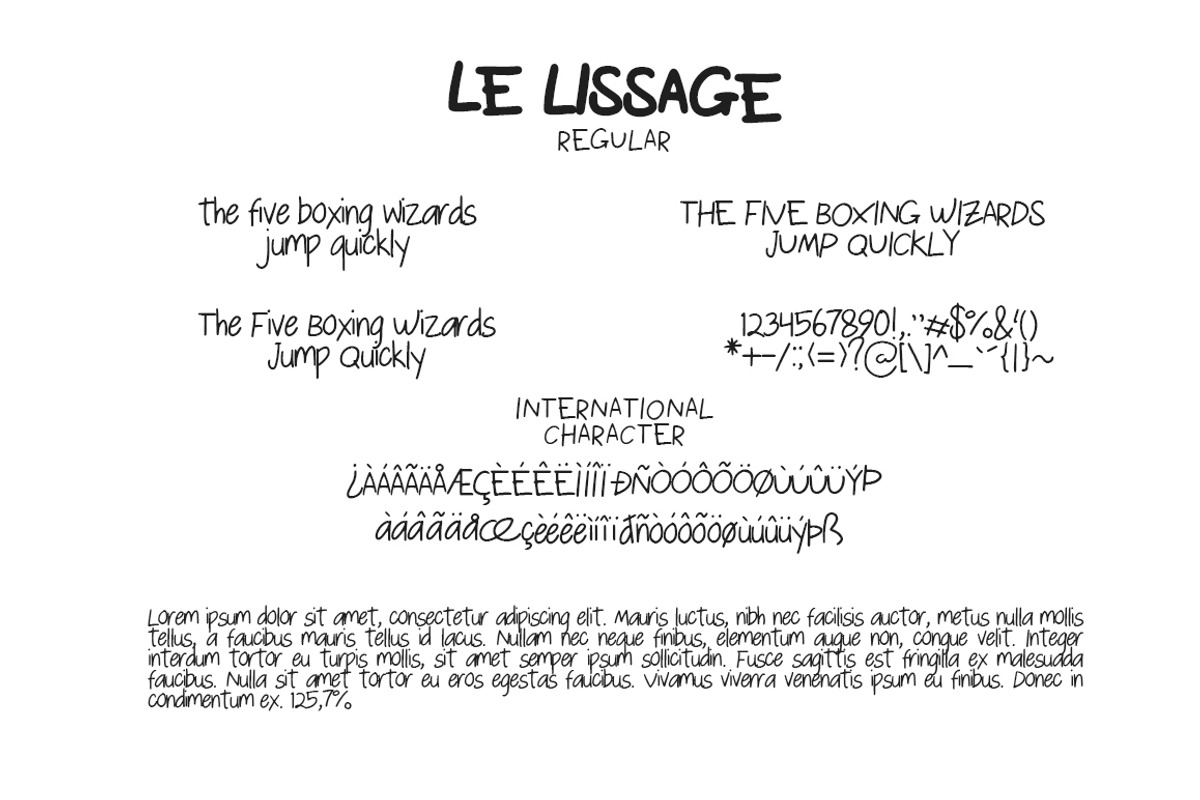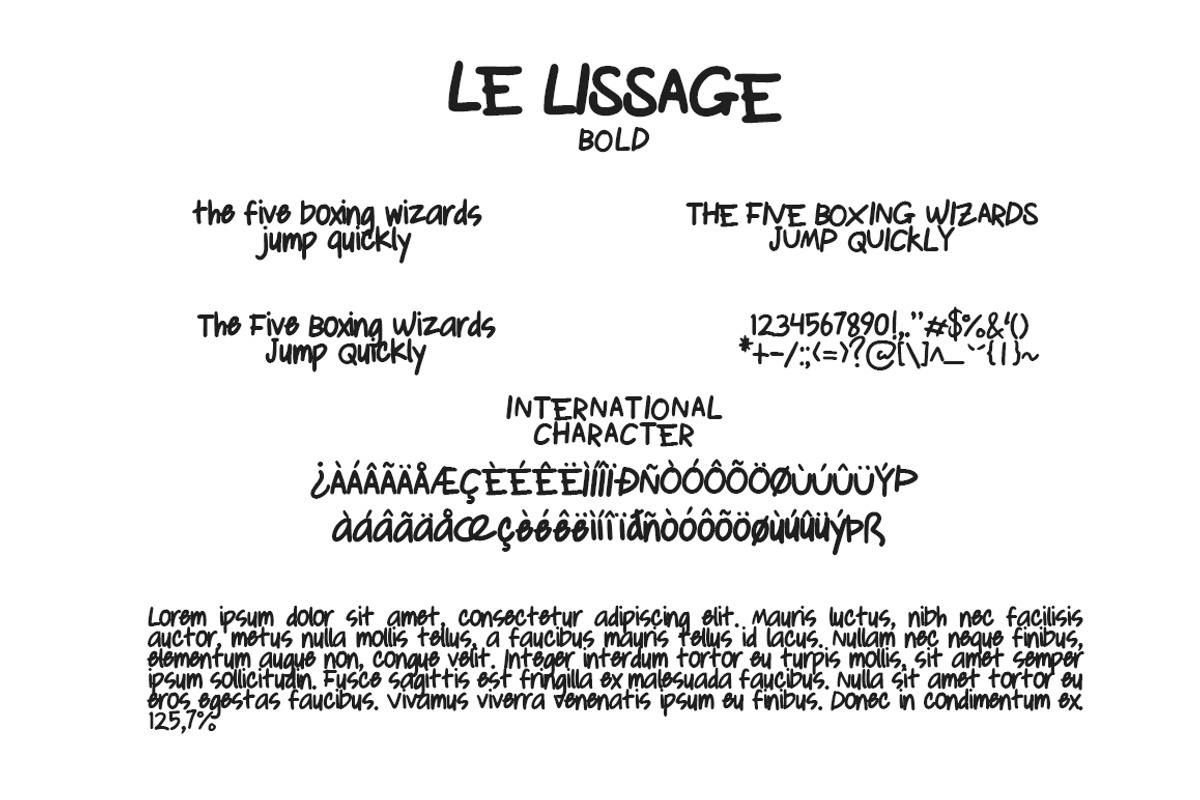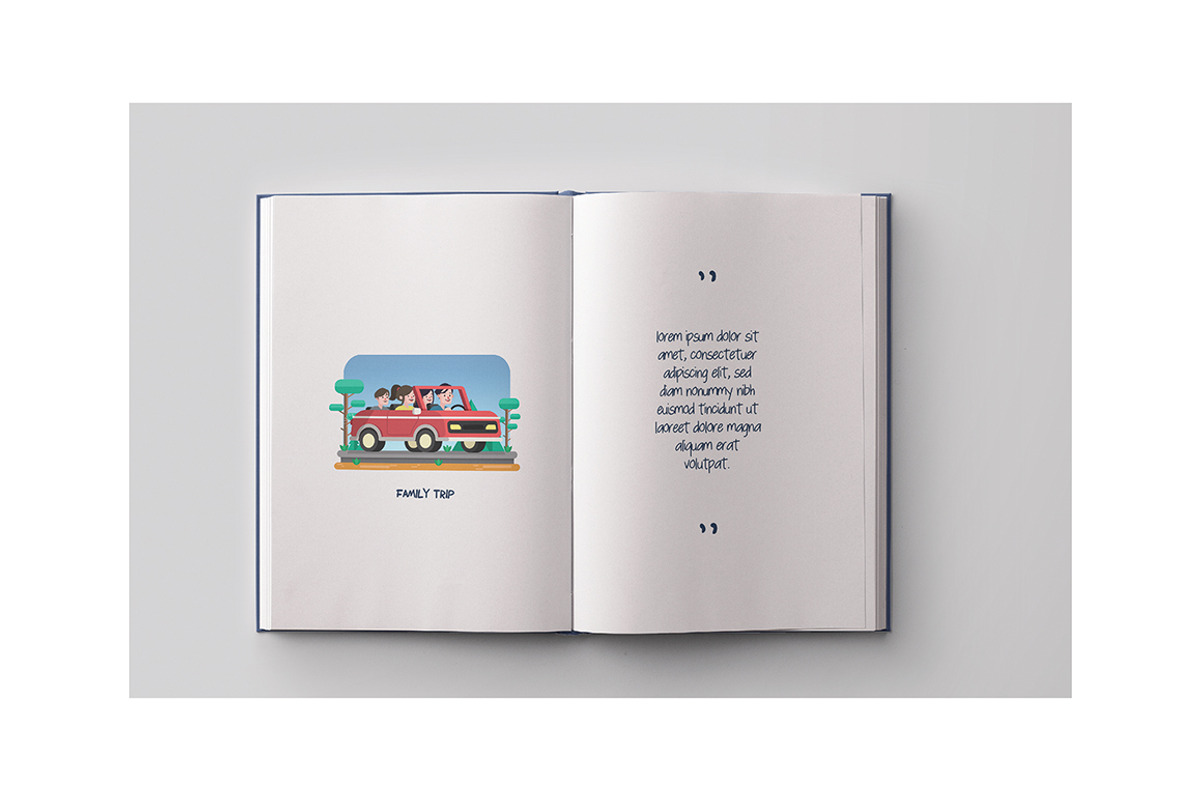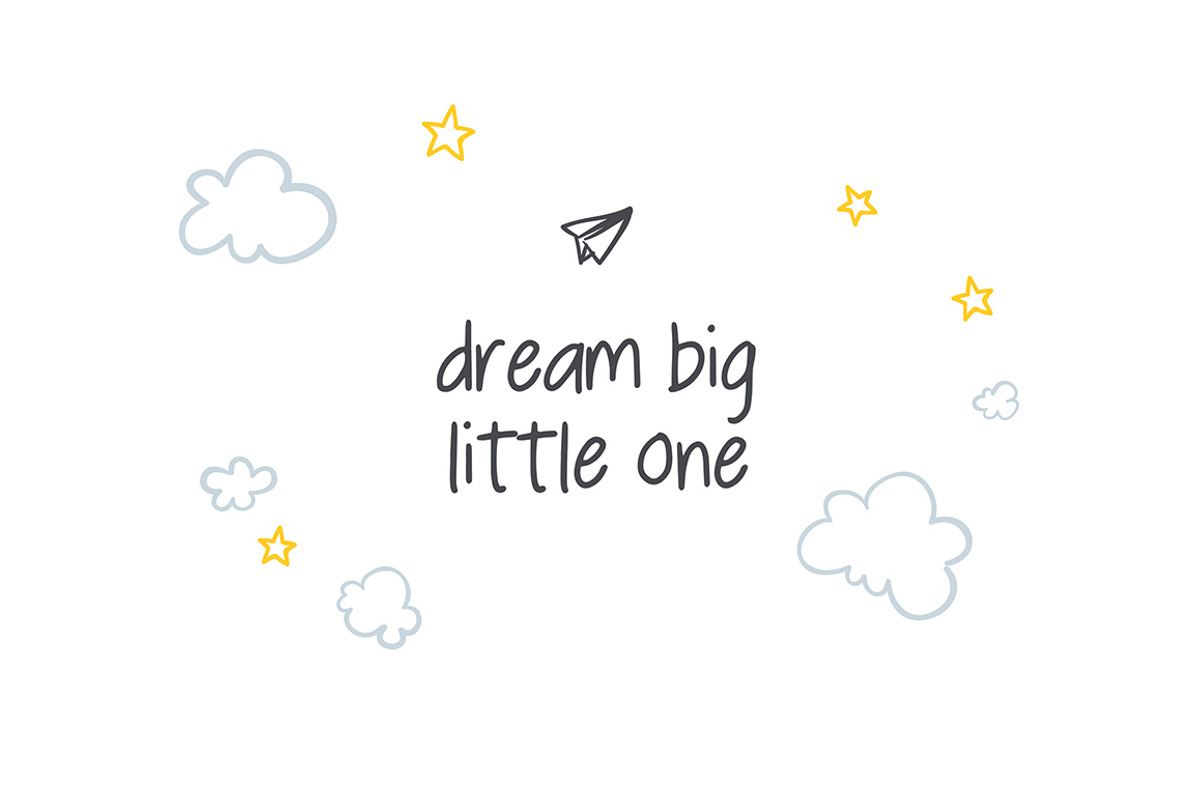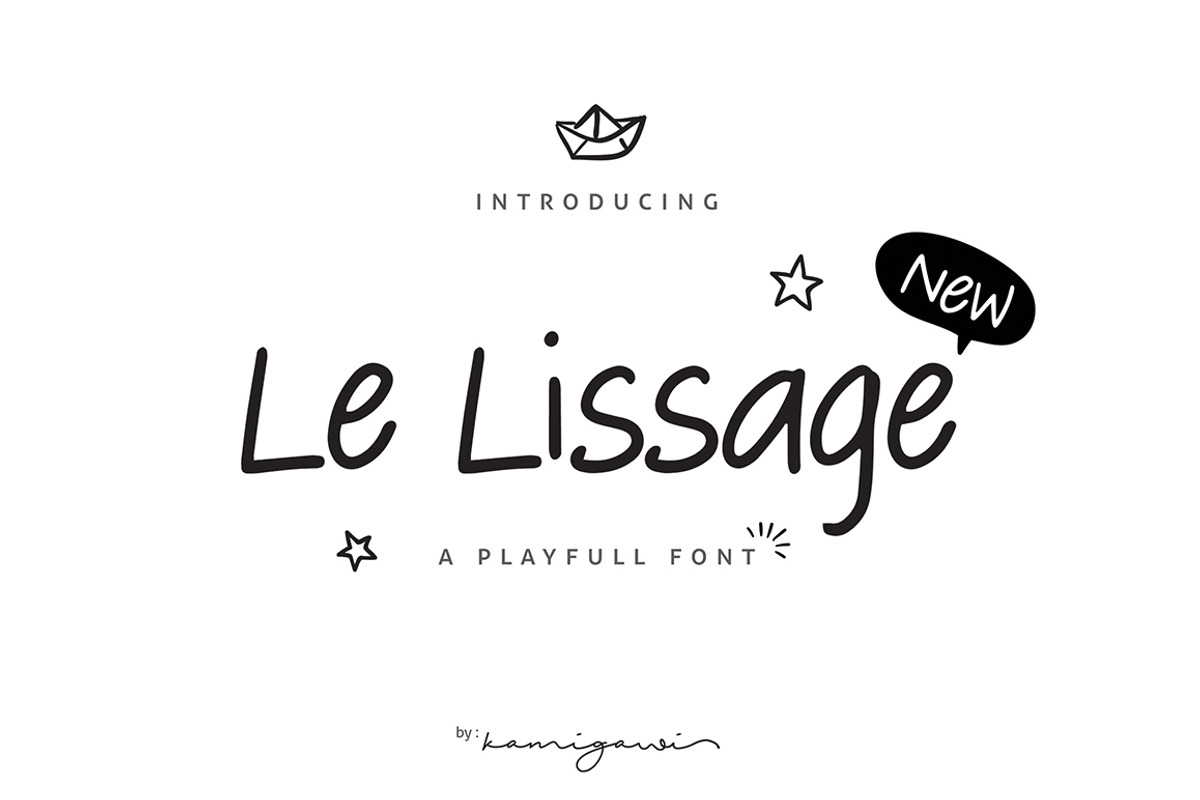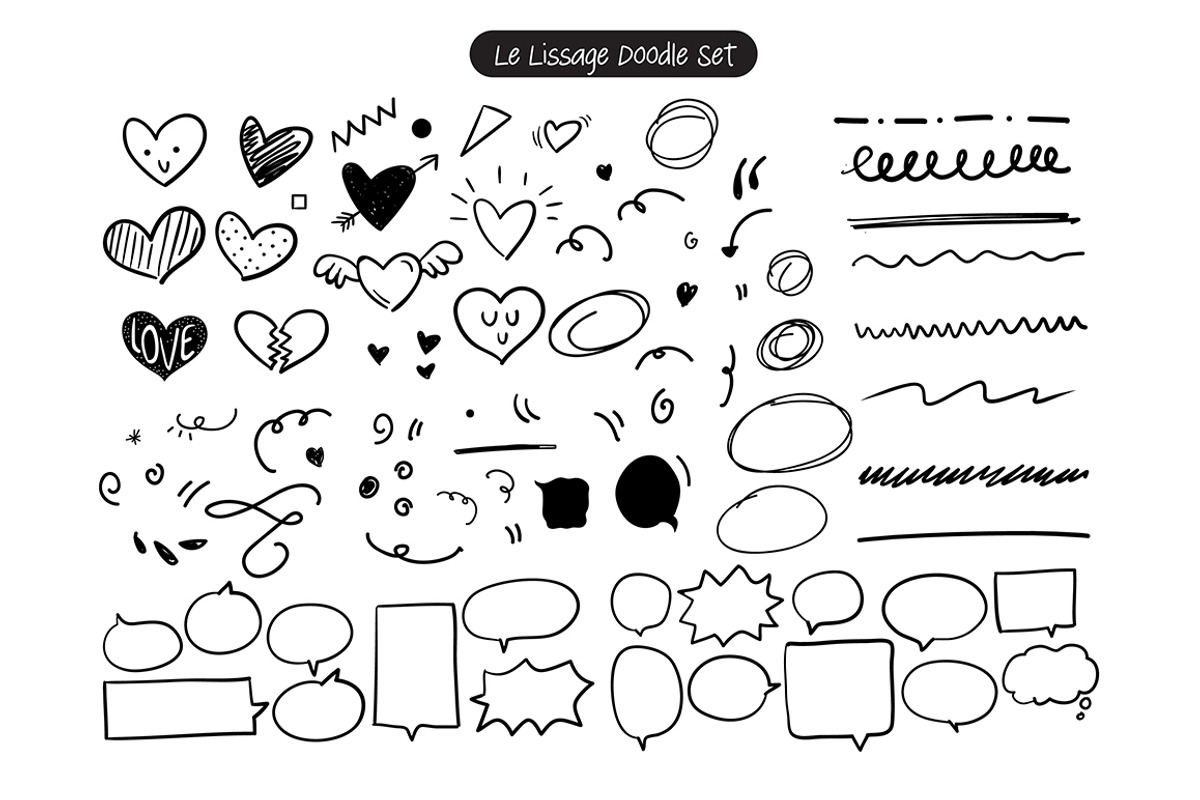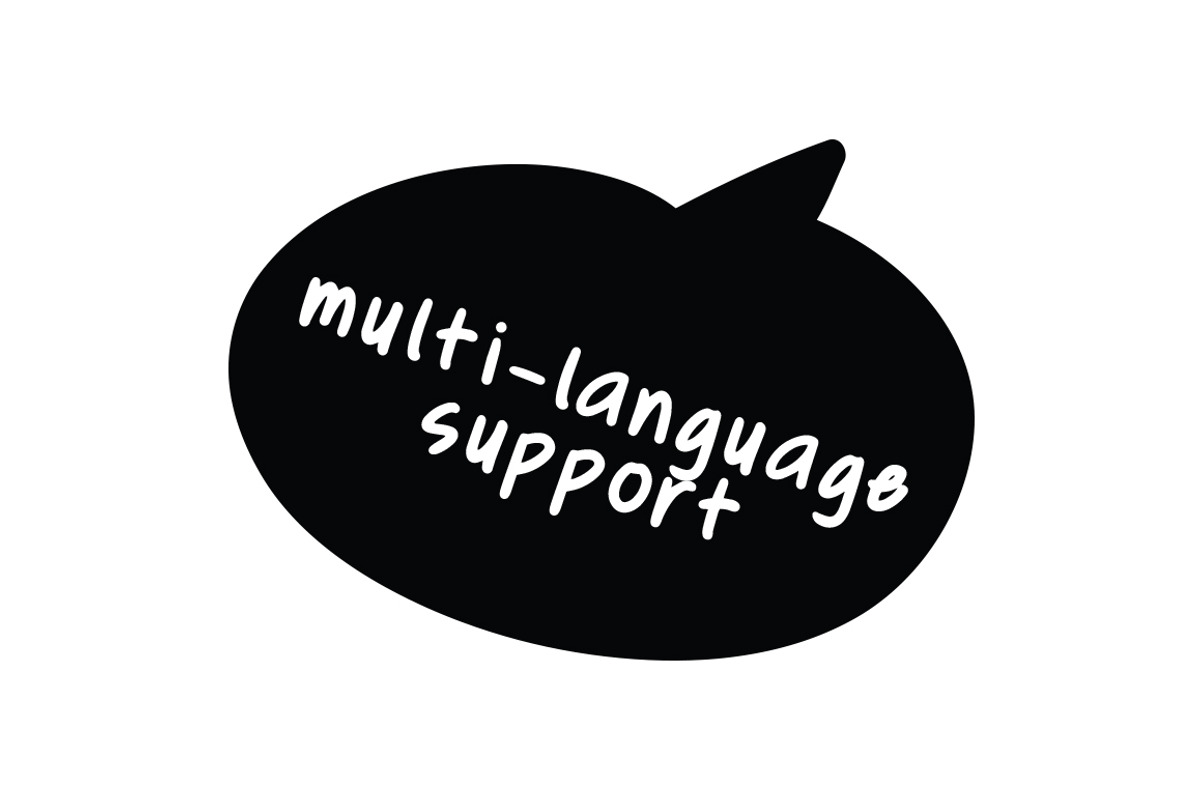
Le Lissage - Font + Doodles
Sweet, fun, and delightful: it's Le Lissage! A mixed-case font with a lot of doodle bonus! Yay!
Le Lissage is a pair of fonts perfect for all of your fun designs. The main font file comes with the usual characters (A-Z, a-z, 0-9, and tons of punctuation), as well as accented characters to support multi-language. Plus, it comes with 50+ unlimited possibility doodles! It also comes with Regular and Bold typeface. Have fun!
- The main font file comes with the usual characters (A-Z, a-z, 0-9, and tons of punctuation), as well as accented characters to support multi
- Plus, it comes with 50+ unlimited possibility doodles!
- It also comes with Regular and Bold typeface.